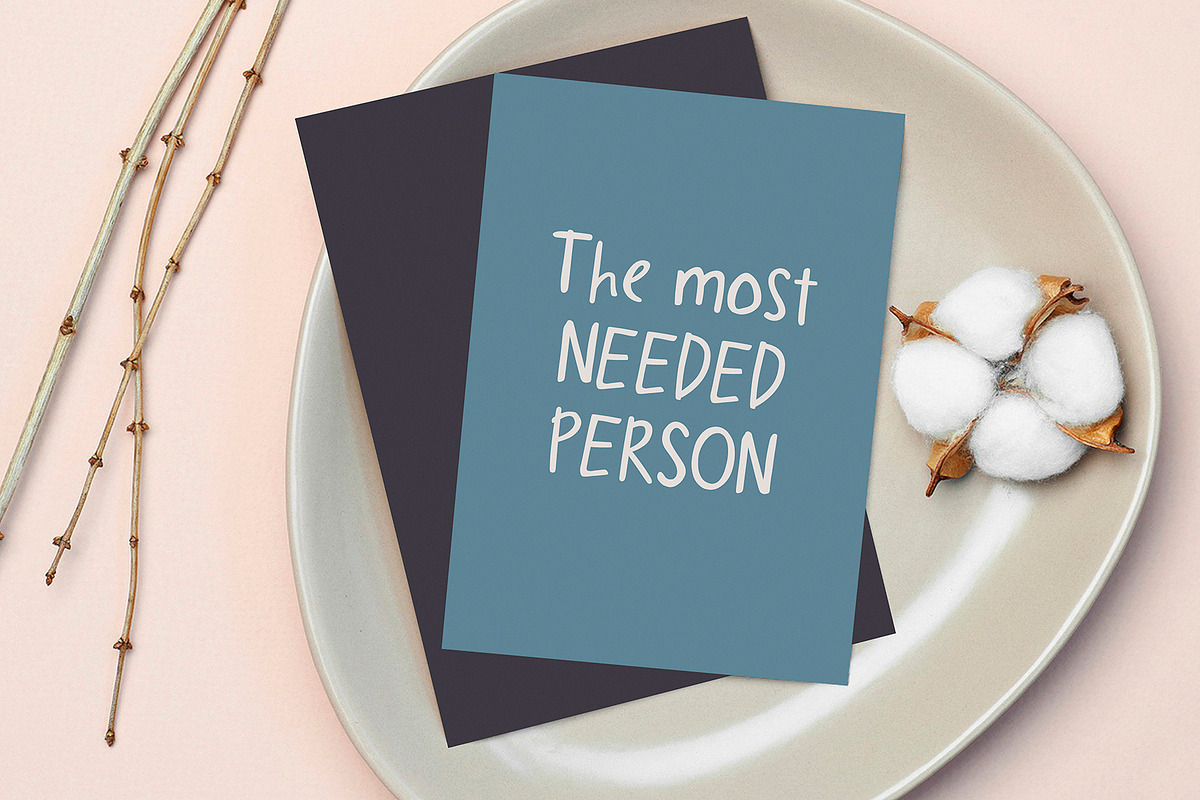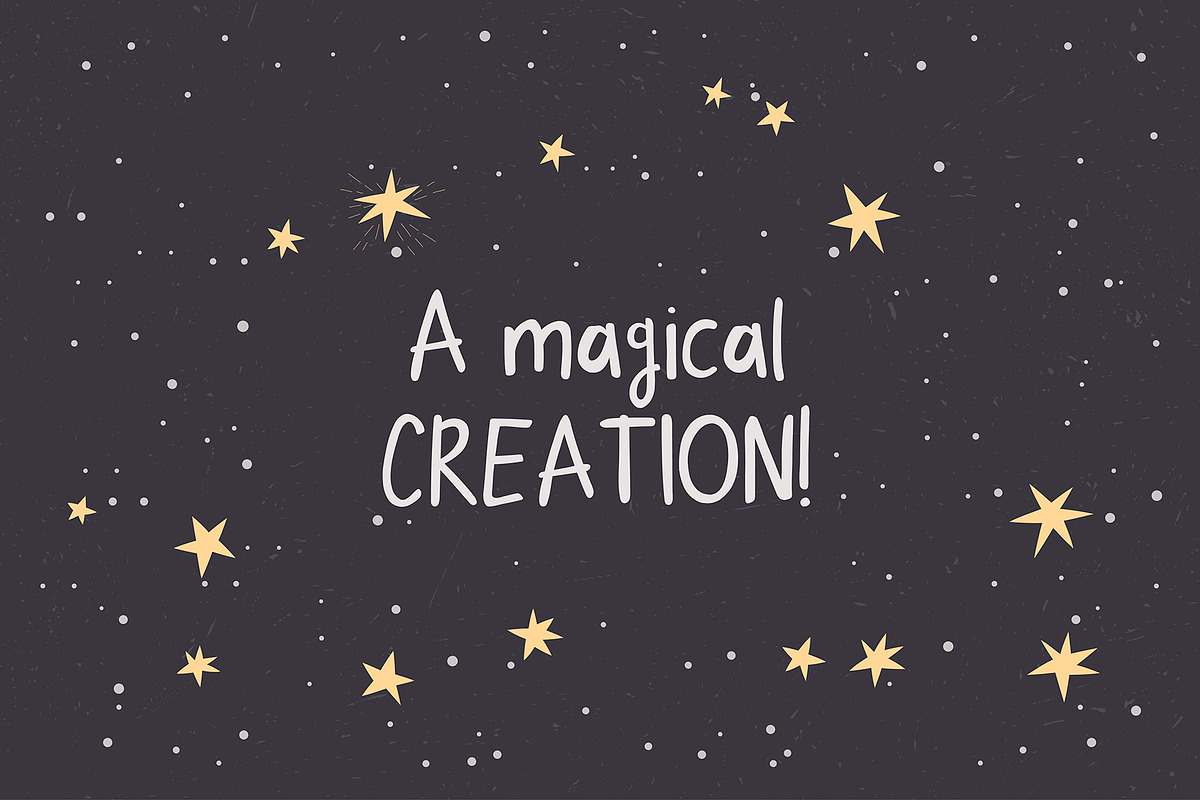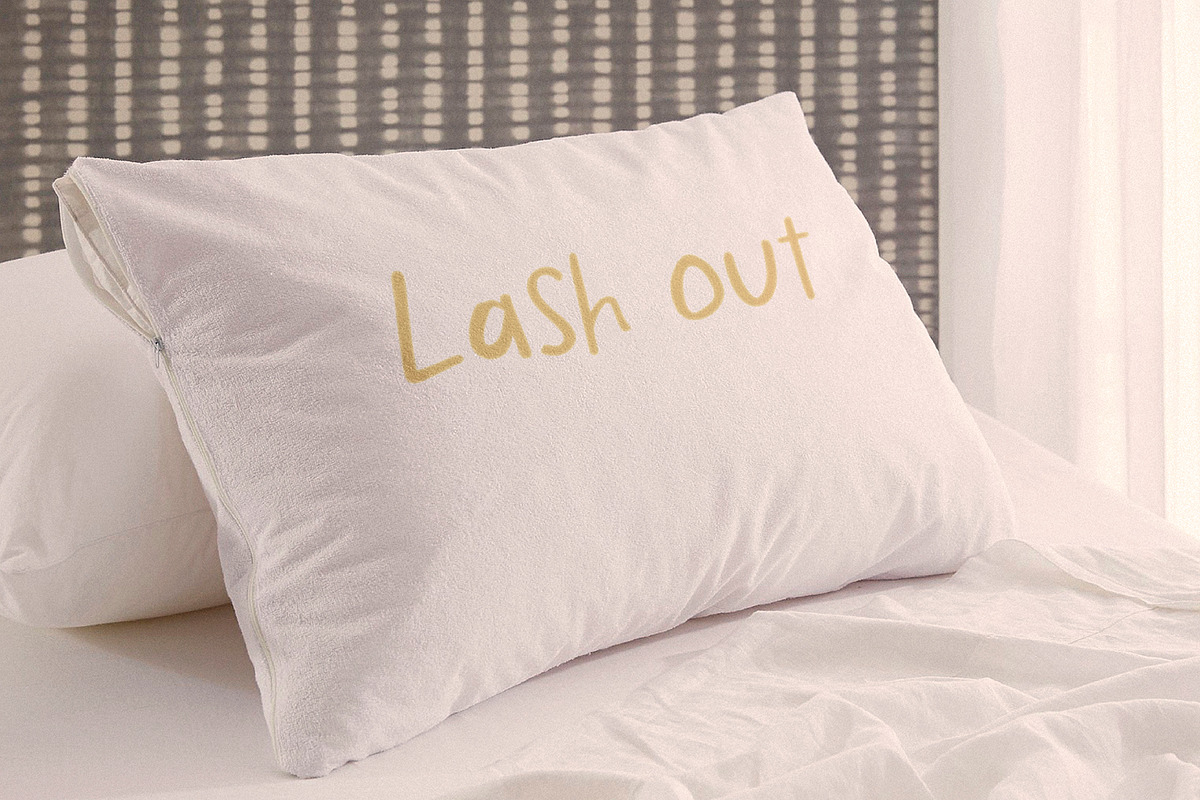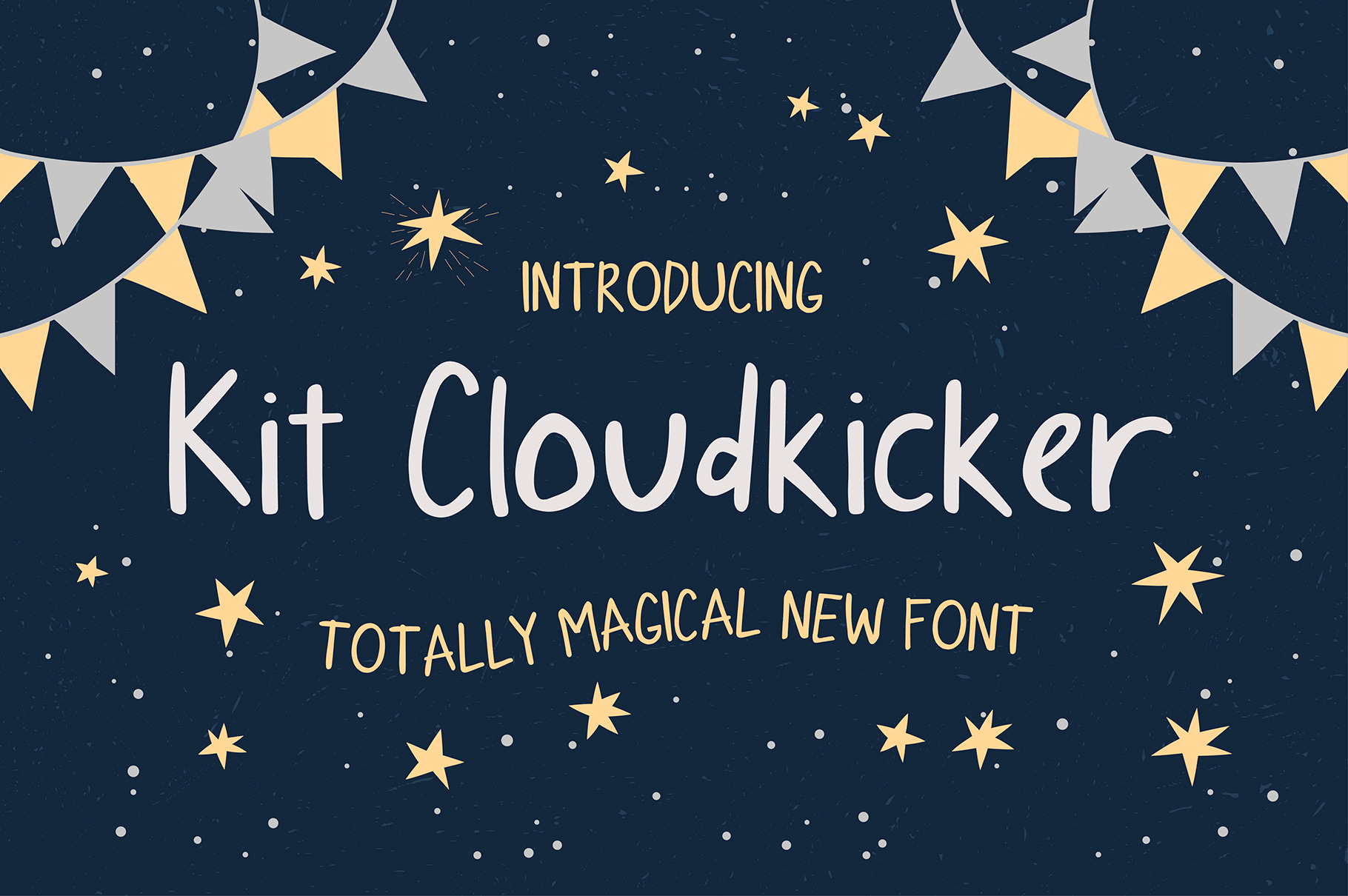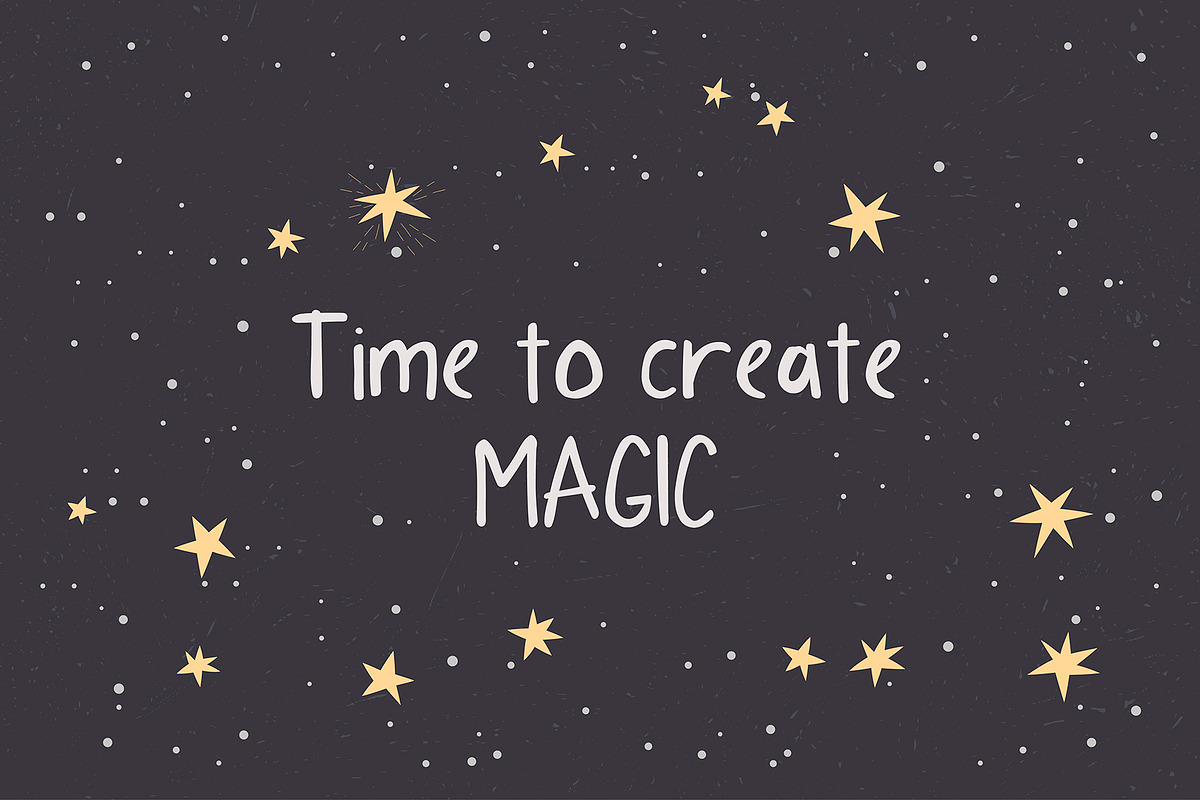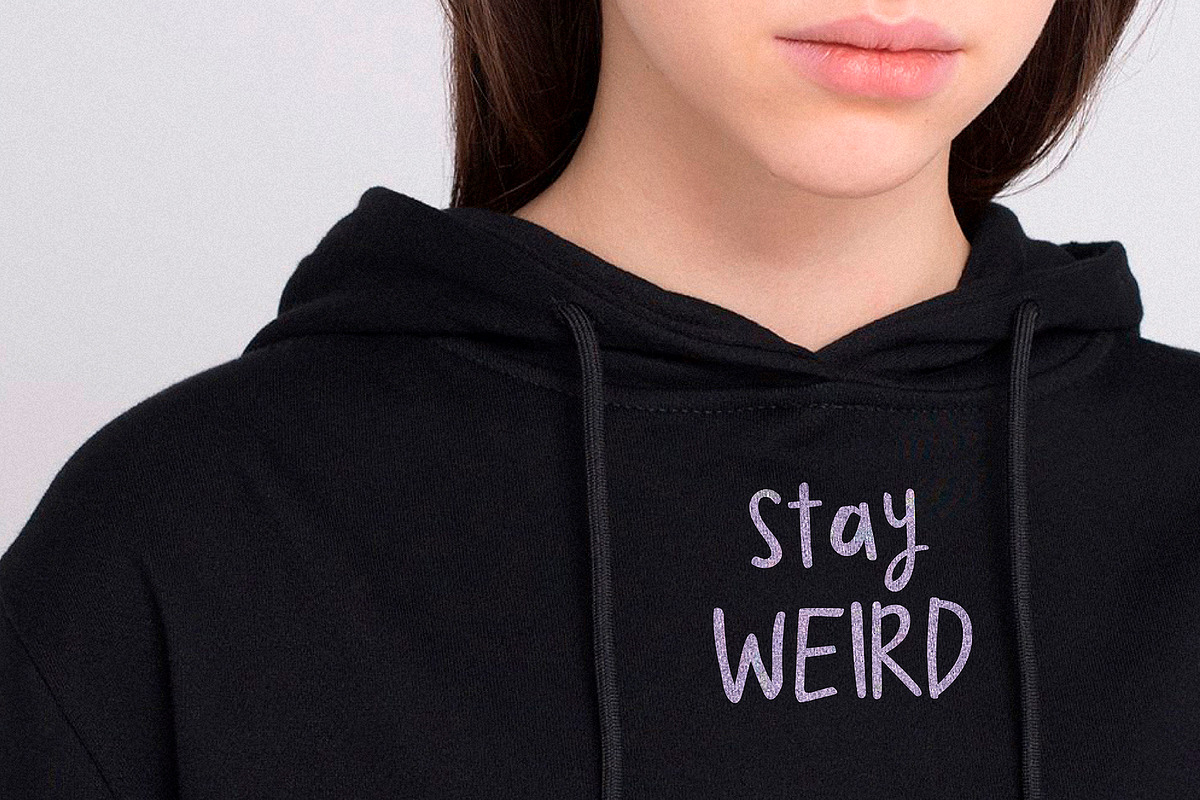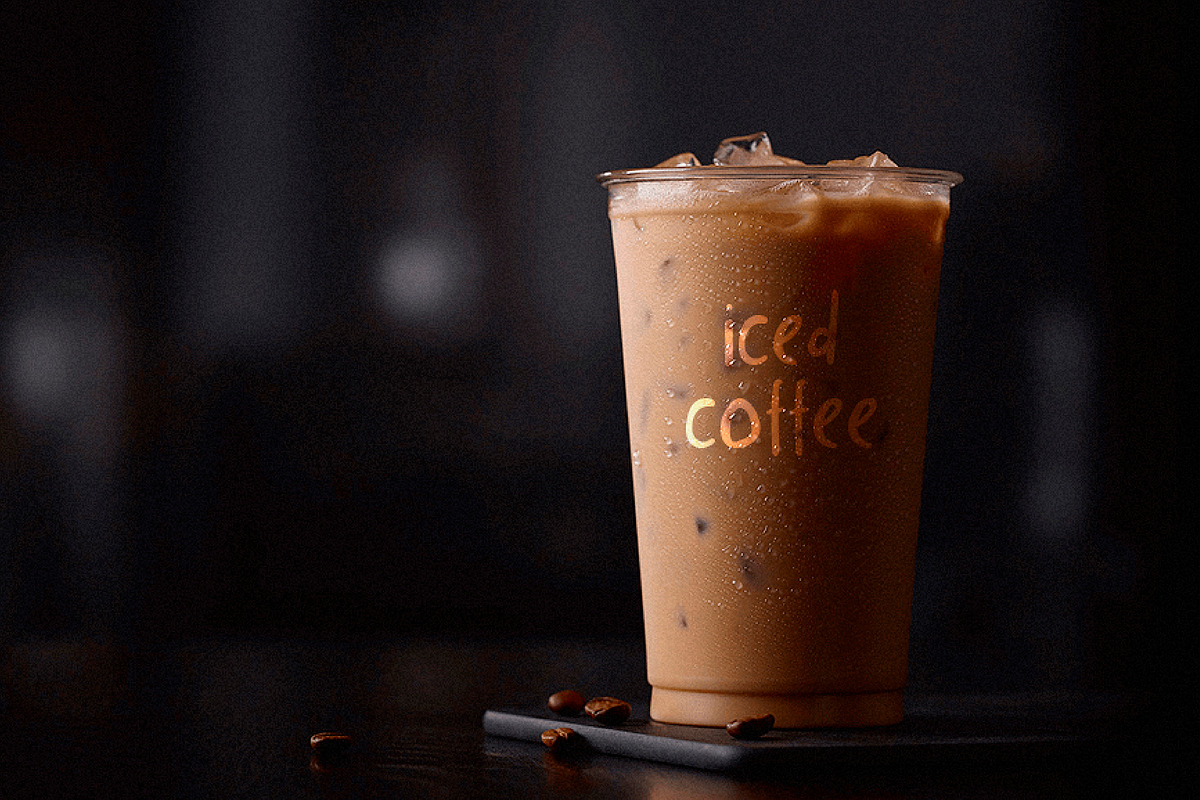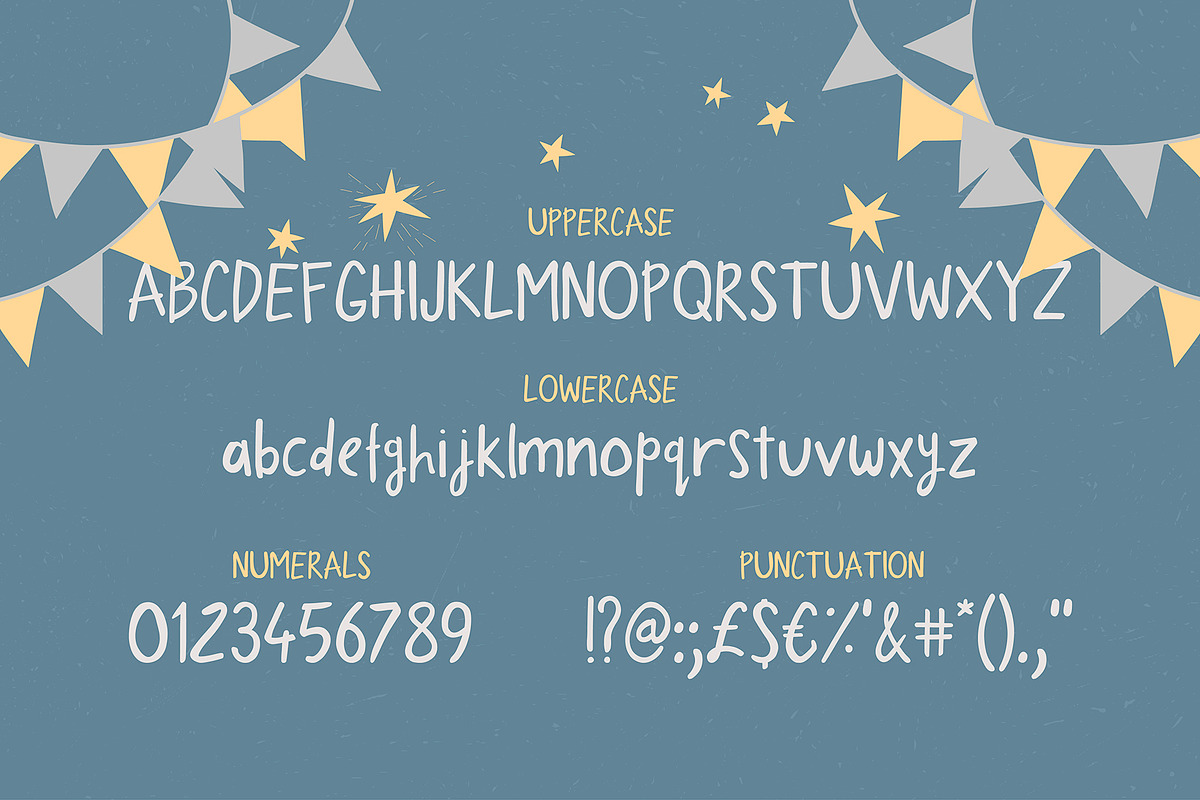
Kit Cloudkicker Typeface
I present to you the universal everyday font 'Kit Cloudkicker'!! This font is very versatile and can be used in various styles of projects where a fast relaxed handwritten font is required. Filled with fun and energetic brush strokes, this font will undoubtedly add a touch of playfulness to your text - perfect for greeting cards, branding, merchandise, invitations and handmade quotes!
The 'Kit Cloudkicker' font is so easy to use and create completely unique, hand-made words every time. It looks so great!!
- A-Z; a-z character set;
- numbers and punctuation marks, symbols.
A font containing uppercase and lowercase letters, numbers, and a wide range of punctuation marks.